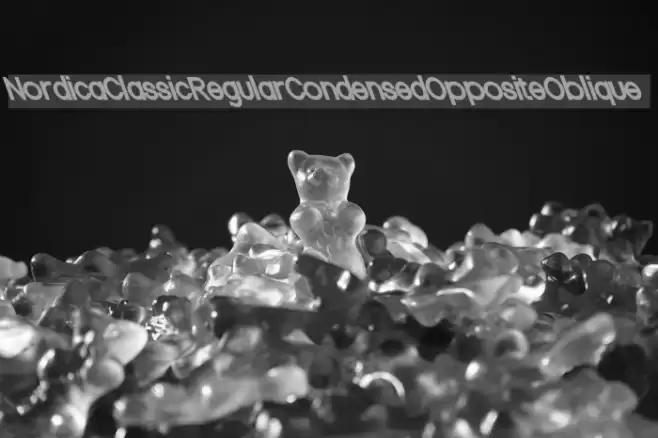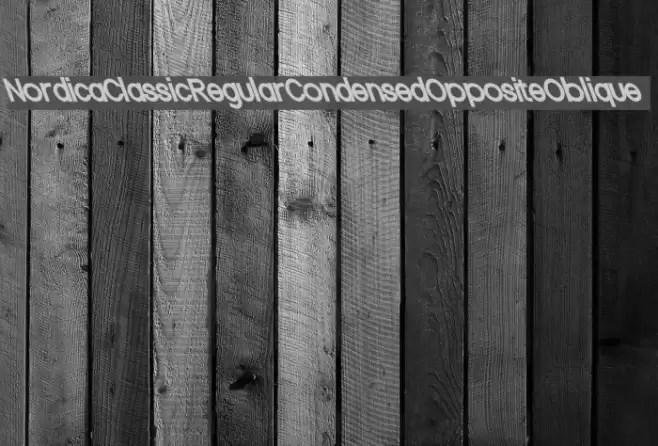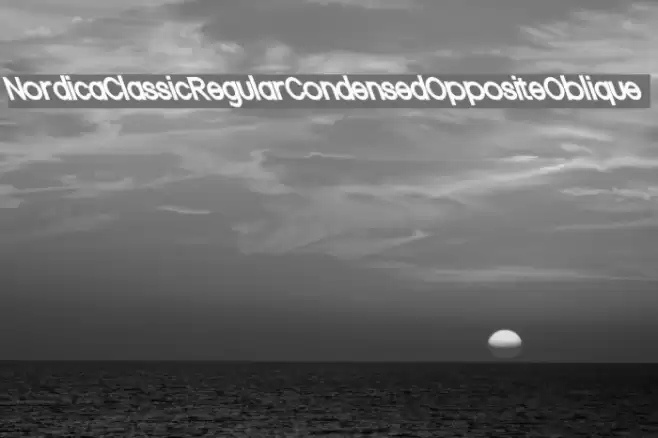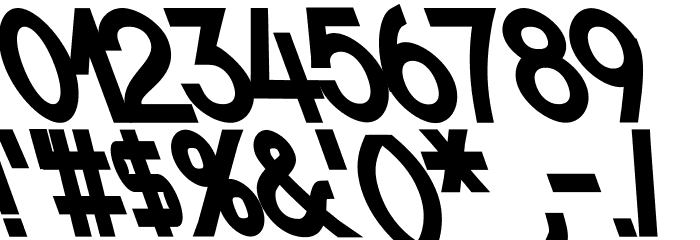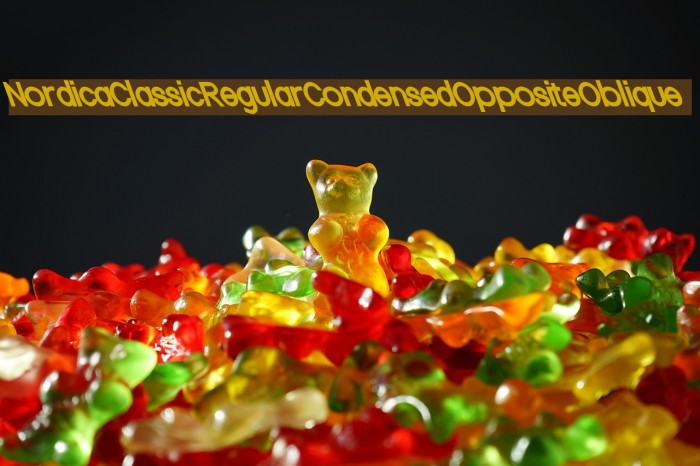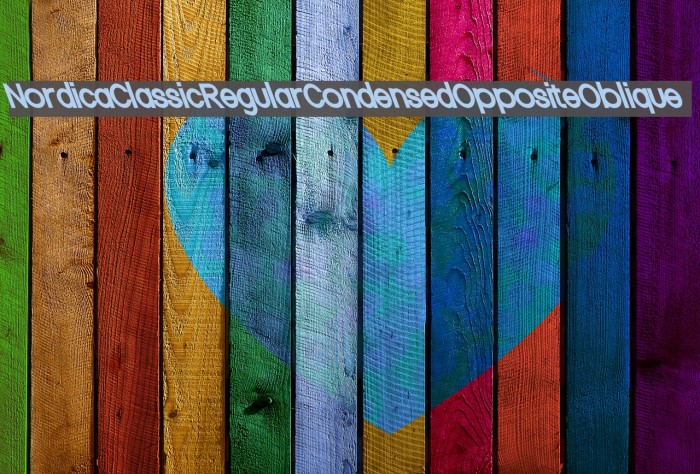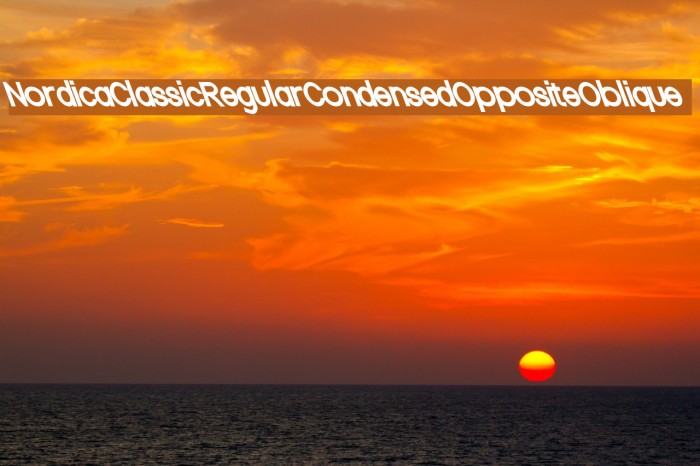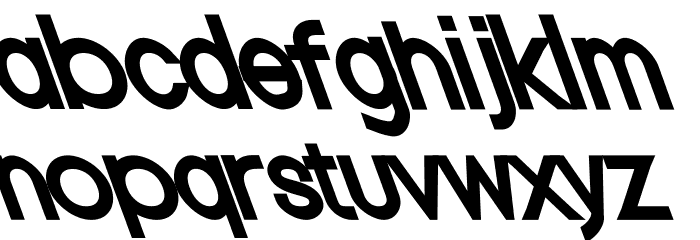
Nordica Classic Regular Condensed Opposite Oblique Font
Nordica Classic Regular Condensed Opposite Oblique Description
This font features a bold and dynamic style with a distinct oblique slant, giving it a sense of movement and energy. The characters are condensed, allowing for efficient use of space while maintaining readability. The strokes are consistent in weight, providing a uniform appearance across all characters. The font includes a full set of uppercase and lowercase letters, numerals, and a variety of special characters, making it versatile for different design needs. Its modern aesthetic is suitable for projects that require a contemporary and impactful look.
A bold, oblique, and condensed font with a modern and dynamic style from Uncategorized fonts.
- Proposed Projects: Ideal for headlines, posters, branding, and advertising materials where a strong visual impact is desired.
- Character Spacing: Tight